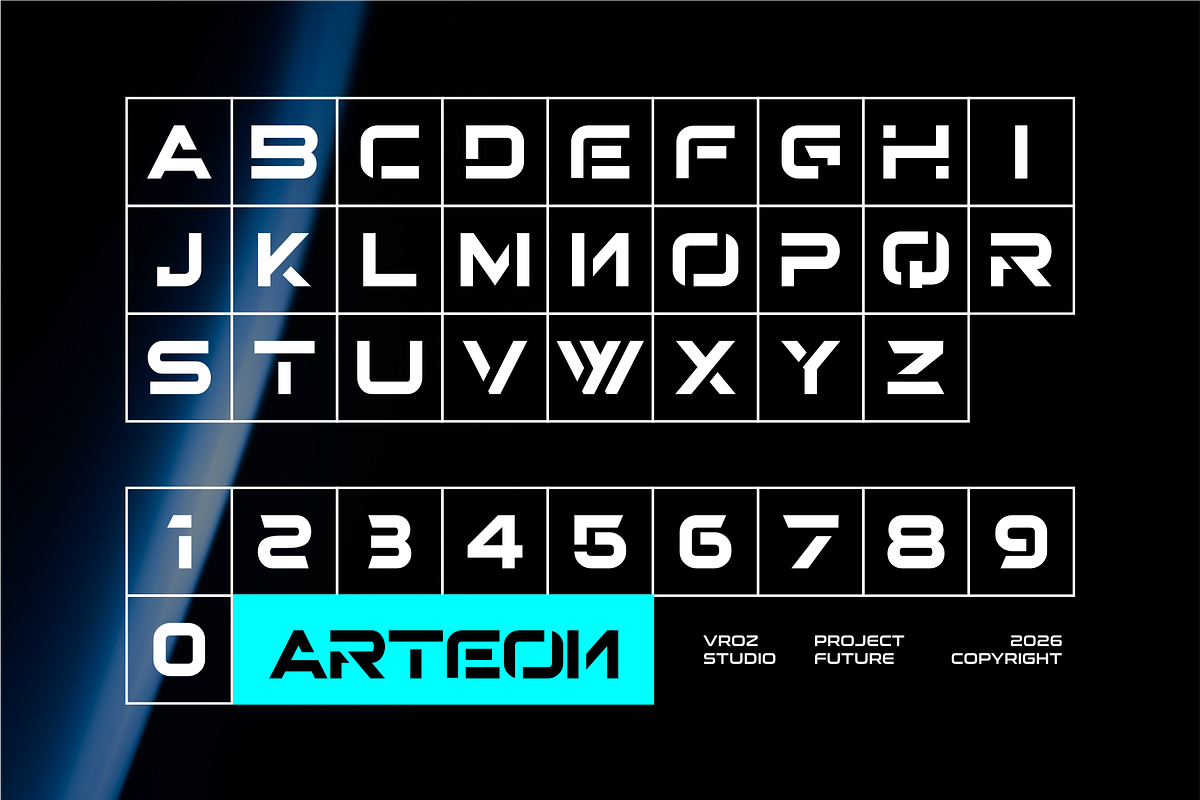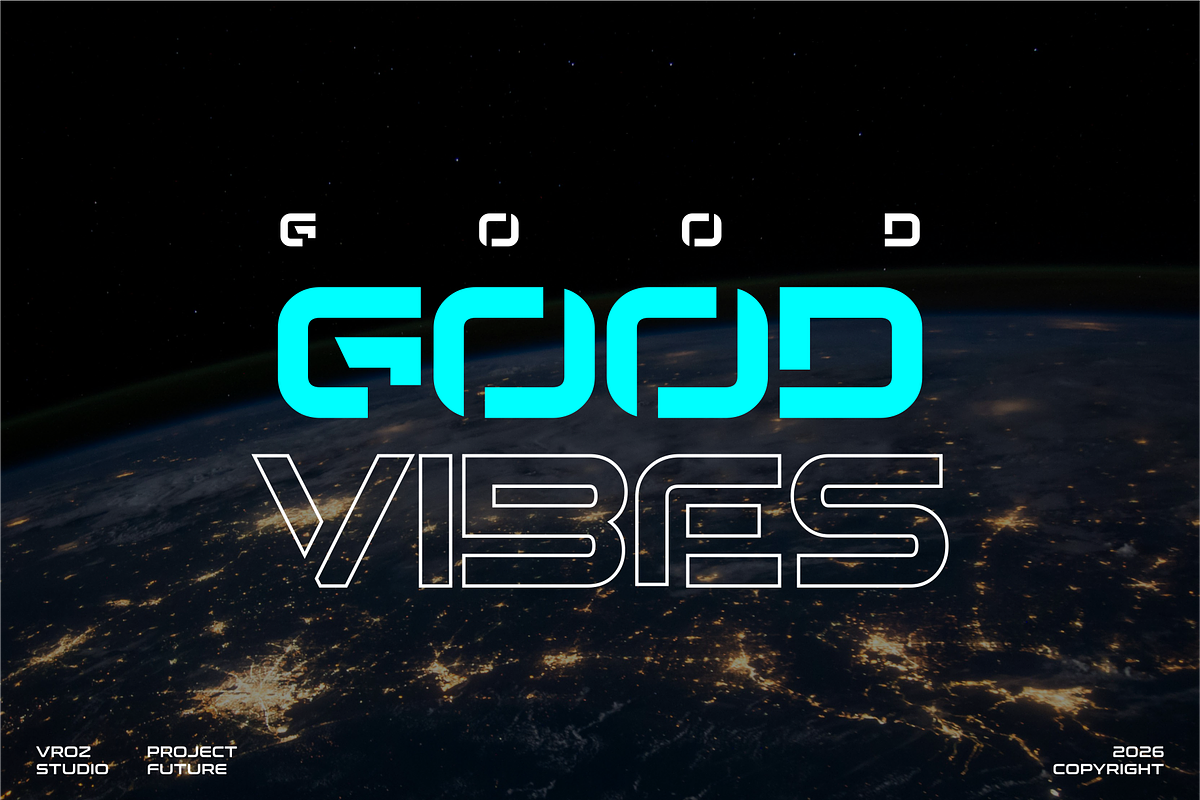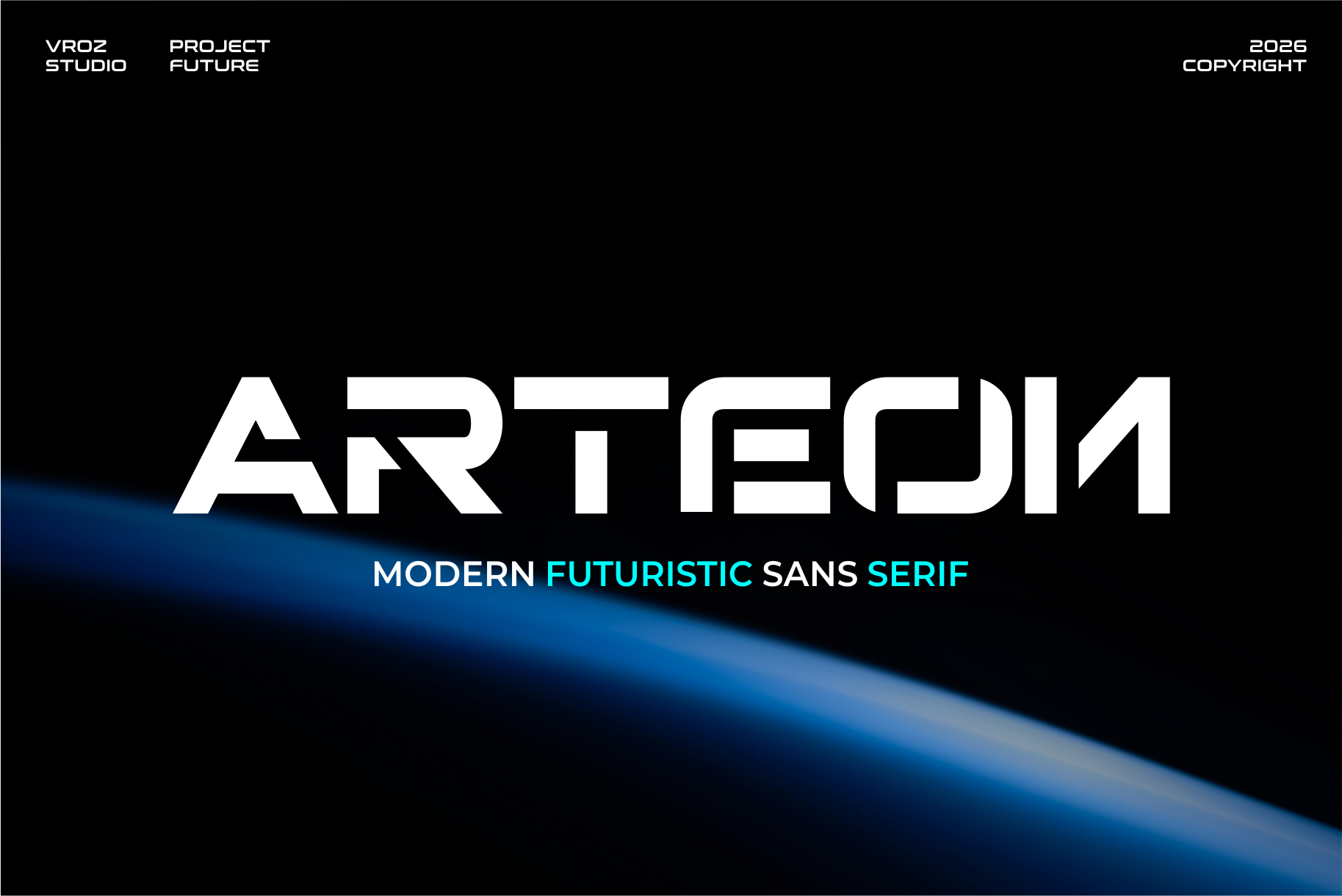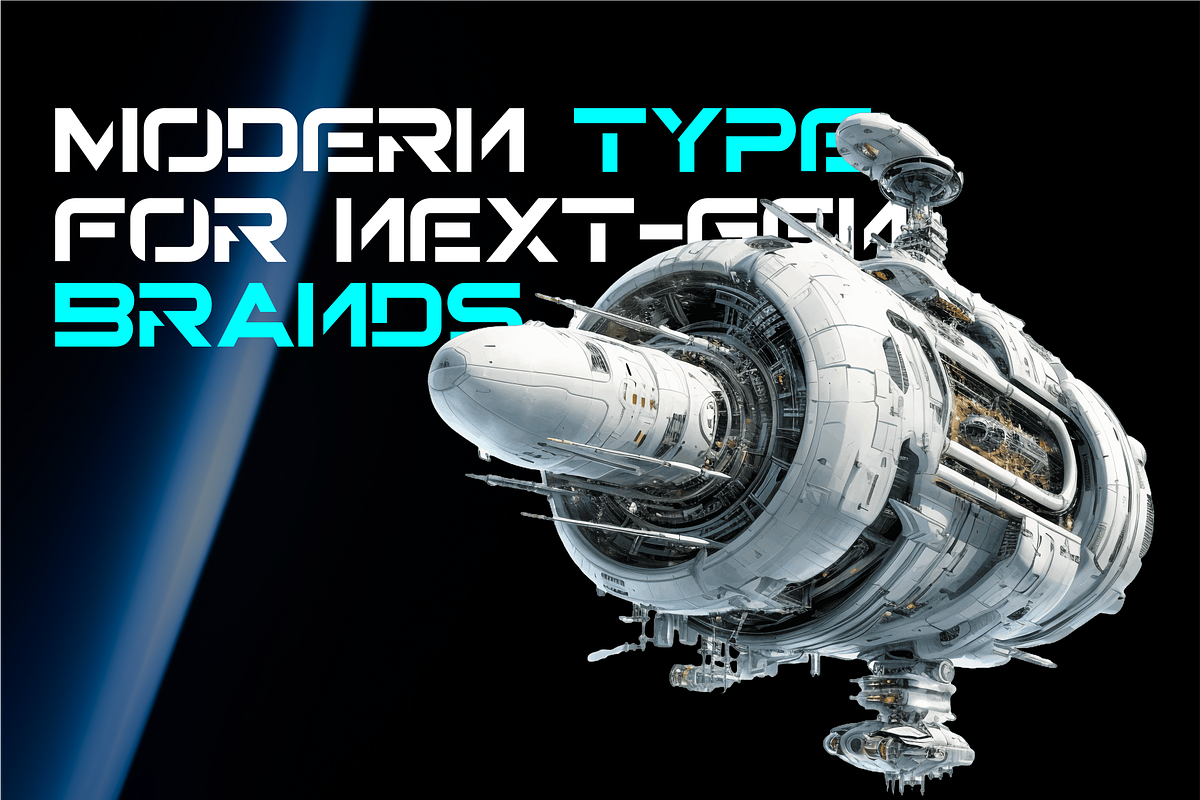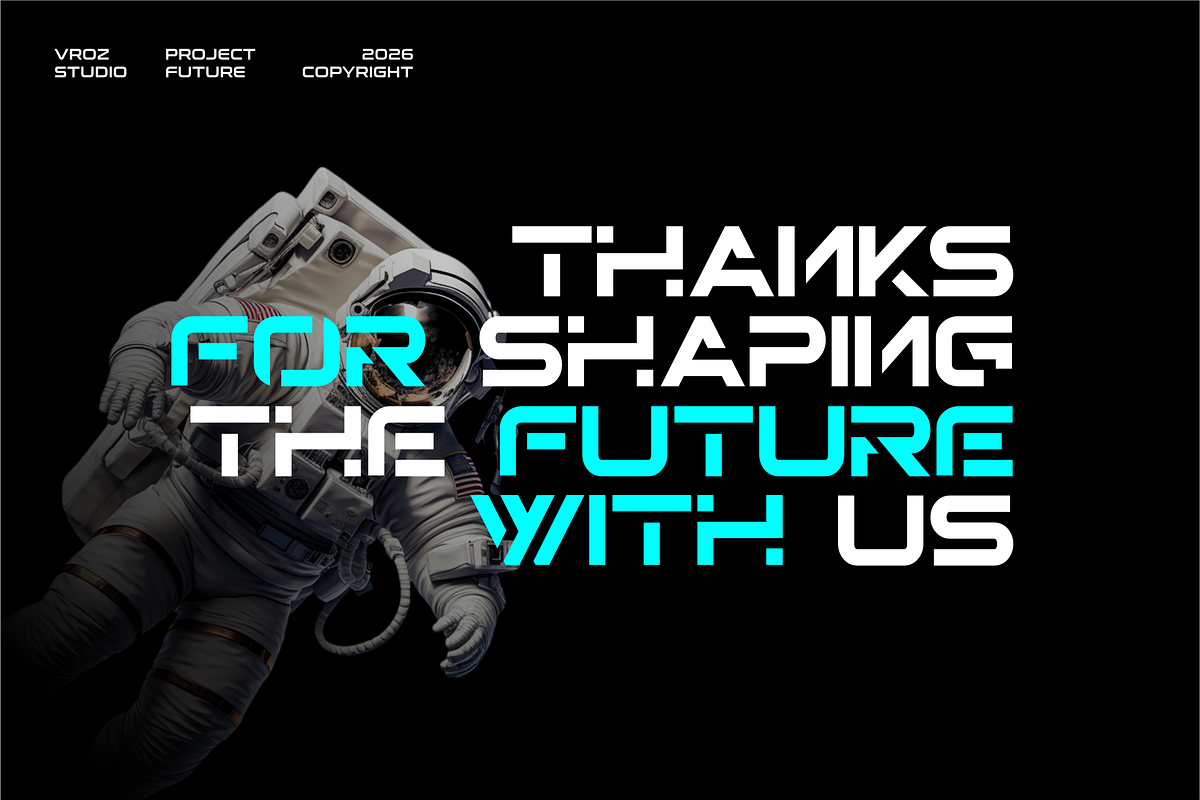
Arteon – Modern Futuristic font
Arteon – Modern Futuristic Sans Serif
ARTEON is a modern and futuristic sans serif font designed to deliver a clean, sharp, and professional appearance. Its geometric structures, smooth angles, and precise lines create a refined futuristic aesthetic that perfectly suits tech-driven, digital, and innovative branding projects.
Designed with versatility in mind, ARTEON works beautifully across logos, headlines, posters, UI designs, and websites. Its well-balanced letterforms ensure excellent readability at any size, making it ideal for both impactful titles and detailed interface text.
With consistent stroke widths and a refined uppercase character set, ARTEON achieves a strong yet minimalist visual presence. This makes it an excellent choice for product branding, advertisements, packaging, and modern digital layouts. It also pairs effortlessly with clean sans serif or elegant serif typefaces.
- Modern and futuristic sans serif design
- Clean geometry with balanced proportions
- High readability at all sizes
- Ideal for tech, gaming, and digital branding
- Strong yet minimalist visual identity
- Easy to pair with other modern typefaces
ARTEON brings a sleek, future-ready touch that helps your designs stand out with clarity, confidence, and innovation.